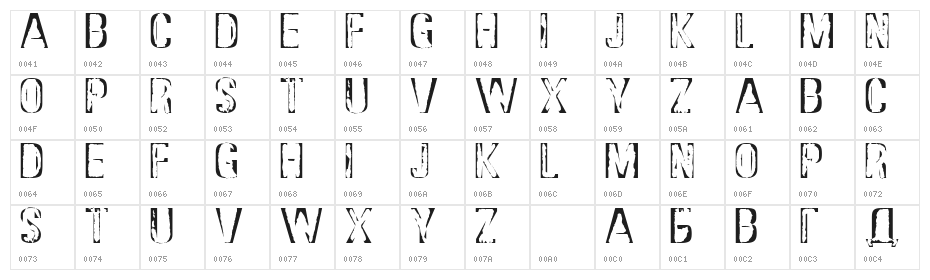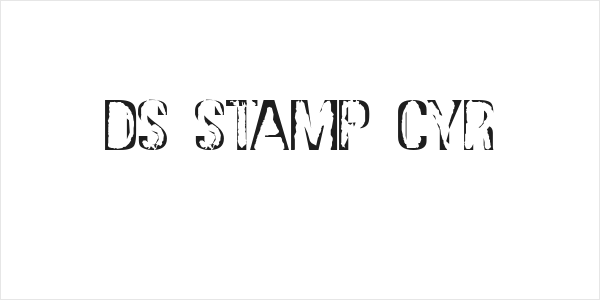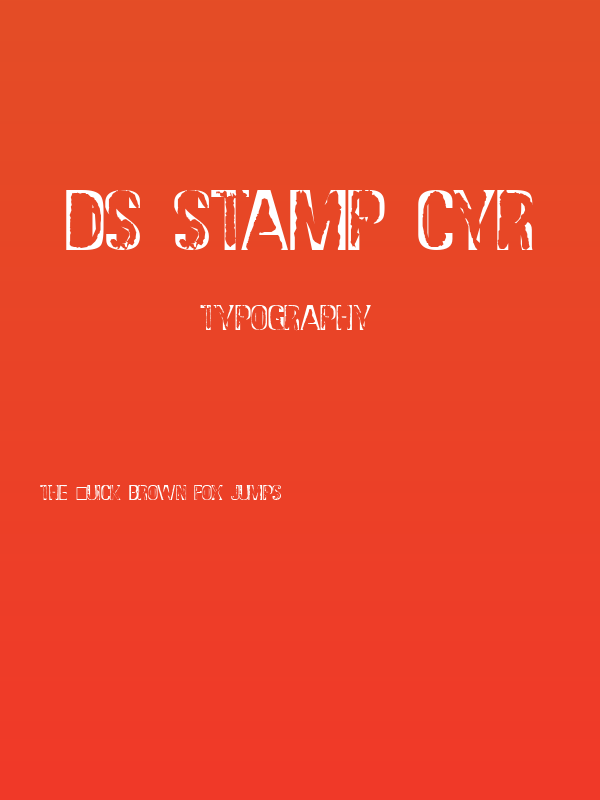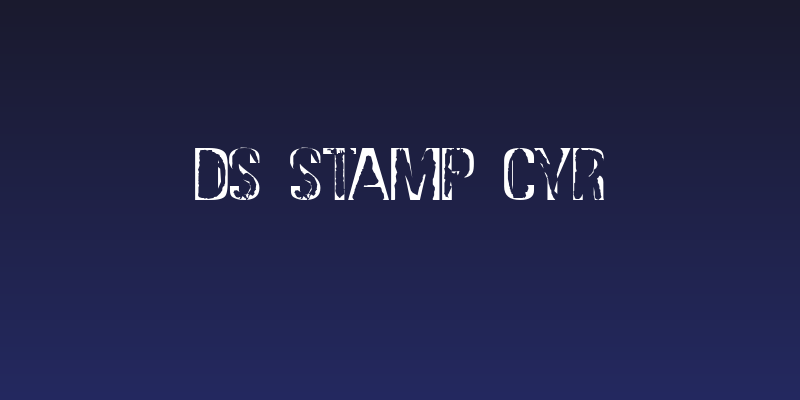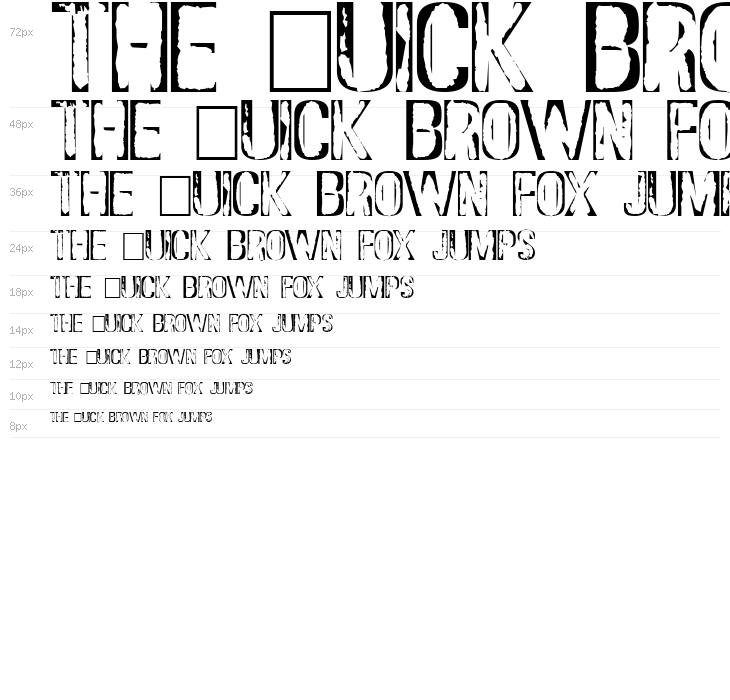
DS Stamp Cyr Font
DS Stamp Cyr Description
This font exhibits a rugged, distressed style reminiscent of vintage rubber stamps. The characters are bold and uppercase, with a worn texture that gives them a unique, aged appearance. The irregular edges and inconsistent inking effect add to its authenticity, making it ideal for designs that require a touch of nostalgia or a handcrafted feel. The font's boldness ensures readability, while the distressed elements provide a distinctive character. It lacks lowercase letters and numbers, focusing solely on uppercase alphabets, which enhances its suitability for impactful headlines or logos.
| Proposed Projects | Ideal for vintage-themed posters, logos, branding, and packaging designs that require a rugged, handcrafted look. |